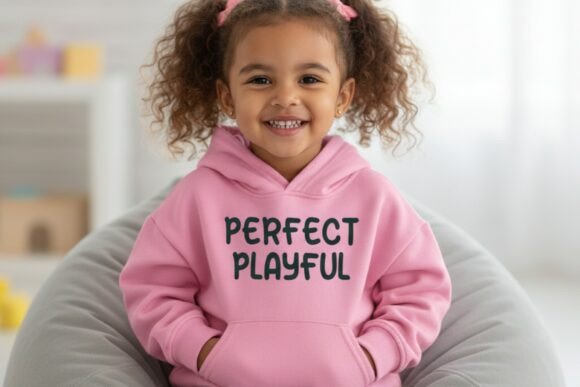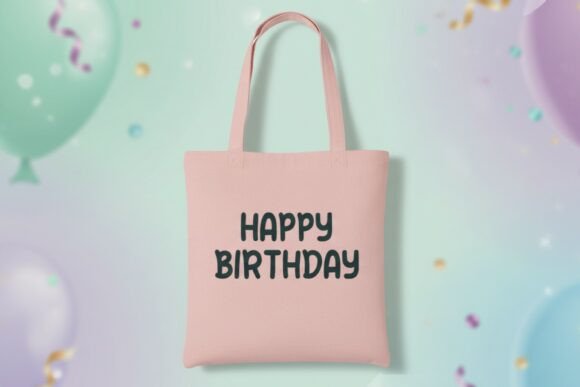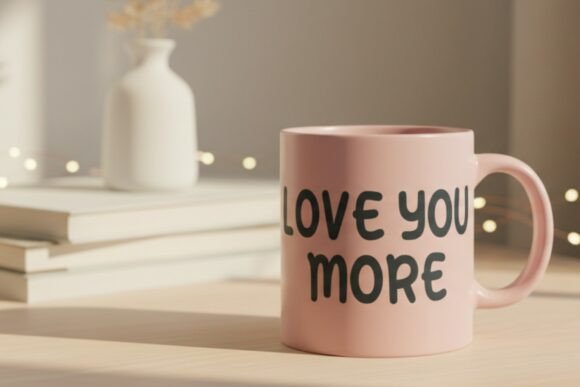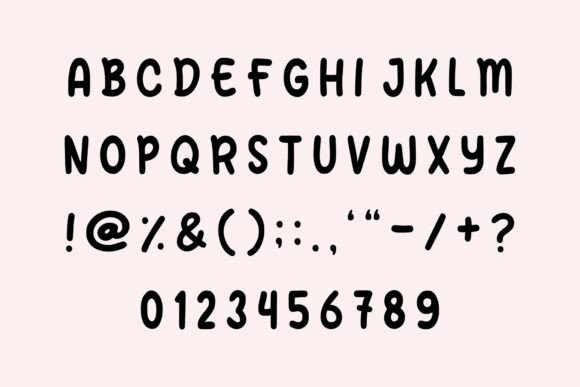
Introducing Birthday Sunday Font: The Ultimate Choice for Fun and Playful Designs
Are you looking for a font that can add a touch of joy and charm to your creative projects? Look no further than Birthday Sunday Font! This adorable display font is specifically designed to bring a smile to your face and make your designs stand out. With its bold, rounded letterforms and friendly personality, Birthday Sunday is the perfect choice for birthday themes, kids’ designs, invitations, stickers, posters, social media graphics, and more.
The Characteristics of Birthday Sunday Font
So, what makes Birthday Sunday Font so special? Here are some of its key characteristics:
- Bold and Rounded Letterforms: The font features bold, rounded letterforms that give it a playful and bubbly feel.
- Friendly Personality: The font has a friendly and approachable personality that makes it perfect for designs that require a personal touch.
- Soft Shapes: The font’s soft shapes make it highly readable, even at smaller sizes.
- Bubbly Style: The font’s bubbly style adds a fun and whimsical touch to any design.
The Versatility of Birthday Sunday Font
One of the best things about Birthday Sunday Font is its versatility. This font works beautifully for both digital and print projects, making it a great addition to your design toolkit. Here are some ideas for using Birthday Sunday Font:
- Birthday Themes: Use Birthday Sunday Font to create adorable birthday invitations, posters, and social media graphics.
- Kids’ Designs: The font is perfect for kids’ designs, including stickers, coloring pages, and educational materials.
- Invitations: Use Birthday Sunday Font to create custom invitations for parties, events, and celebrations.
- Stickers and Posters: The font is great for creating fun and playful stickers and posters.
- Social Media Graphics: Use Birthday Sunday Font to create eye-catching social media graphics that will grab your audience’s attention.
Why Choose Birthday Sunday Font?
So, why should you choose Birthday Sunday Font for your next project? Here are some reasons:
- Unique and Playful: The font is unique and playful, making it perfect for designs that require a personal touch.
- Easily Readable: The font is highly readable, even at smaller sizes, making it perfect for digital and print projects.
- Customizable: The font is customizable, allowing you to adjust the size, color, and style to fit your design needs.
- Time-Saving: Using Birthday Sunday Font can save you time and effort, as you can create professional-looking designs in minutes.
Tips for Using Birthday Sunday Font
Here are some tips for using Birthday Sunday Font:
- Pair it with Other Fonts: Pair Birthday Sunday Font with other fonts to create a unique and interesting design.
- Use it for Headings: Use Birthday Sunday Font for headings and titles to add a playful touch to your design.
- Keep it Simple: Keep your design simple and clean to let the font shine.
In conclusion, Birthday Sunday Font is a cute and playful display font that can add a touch of joy and charm to any creative project. With its bold, rounded letterforms and friendly personality, this font is perfect for birthday themes, kids’ designs, invitations, stickers, posters, social media graphics, and more. Its soft shapes and bubbly style make it highly readable while still maintaining a fun and whimsical look. So, why not give Birthday Sunday Font a try and see how it can elevate your designs?